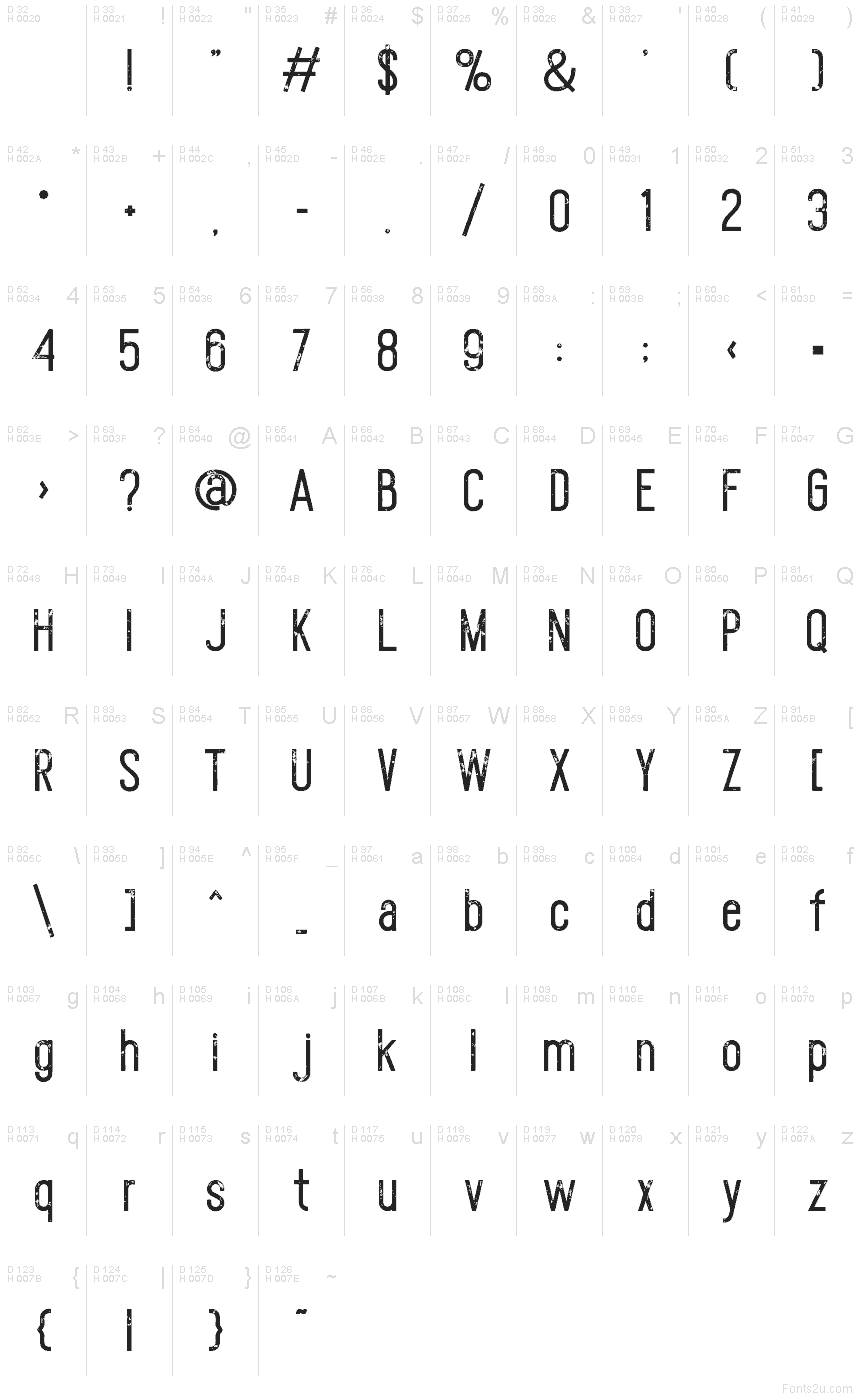
Rolever Texture Semibold
Rolever Texture Semibold font by PutraCetol Studio is a display typeface that seeks to impress with its eroded style, condensed width, and distressed appearance. Its grunge texture reflects a vintage feel, while offering a modern urban appeal and rugged aesthetic. Uneven edges give the font an imperfect look that showcases old unmaintained books and signage inspirations.
A truly versatile font, Rolever is perfect for branding identities (logos), packaging design projects (boxes, wraps), book titles & covers (novels genres especially), posters & flyers (clubs events especially). It is also usable for game graphics, website headers; apparel prints (T-shirts) labels; album covers; social media posts/ads & more!